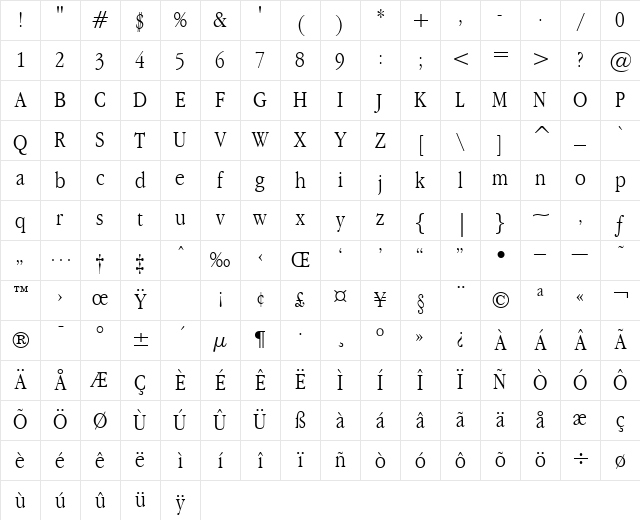
Apple Garamond BT Light
Design Context for Apple Garamond BT
Apple Garamond BT is a composed and adaptable typeface that performs quietly and consistently across a wide range of design contexts. Its slender proportions lend an understated elegance to any composition.